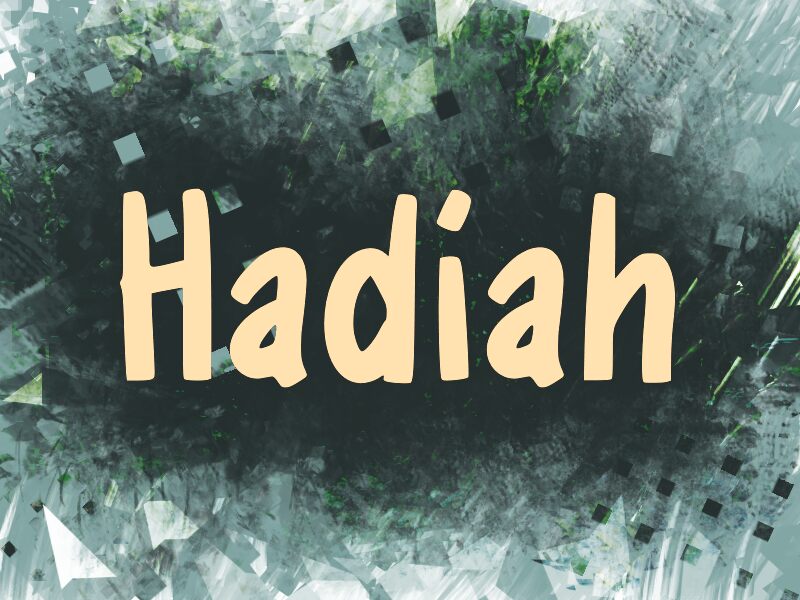
Hadiah
Hadiah font is a vivid display font made by Wep. This lively free font has comic letters and an informal script style that’s condensed and dynamic. Its playful, friendly, inviting, and casual character makes it extremely noticeable in any project you use it.
Having fun creating stunning typographic designs from posters to magazines and packaging. Take your social media content to the next level using this fresh informal typeface that acts as a visual breath of fresh air.